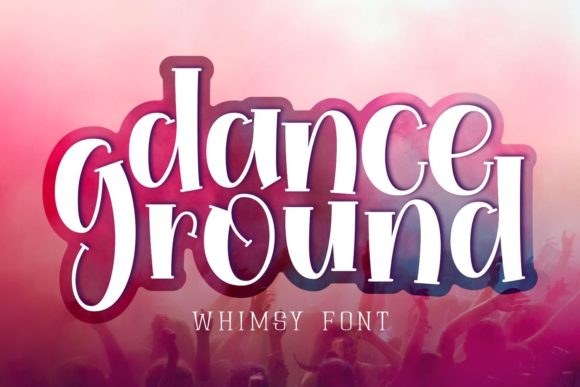
Dance Ground Font: Elevate Your Designs with a Unique and Stylish Display Font
In the world of design, fonts play a crucial role in conveying messages, expressing emotions, and creating visual identities. When it comes to making a statement, a stylish and unique display font can make all the difference. Introducing Dance Ground Font, an interesting and distinctive display font that can help you create gorgeous and timeless designs. In this article, we’ll explore the features, benefits, and uses of Dance Ground Font, and why it’s an excellent choice for designers, artists, and businesses looking to elevate their visual game.
The Story Behind Dance Ground Font
Dance Ground Font is a carefully crafted display font designed to capture the essence of movement, energy, and creativity. Its unique and stylish look is inspired by the world of dance, with fluid lines, dynamic curves, and a sense of rhythm that sets it apart from other fonts. Whether you’re a designer, artist, or business owner, Dance Ground Font is sure to captivate your audience and leave a lasting impression.
Key Features of Dance Ground Font
- Unique and Stylish Design: Dance Ground Font boasts a distinctive and stylish design that will set your designs apart from the rest.
- Display Font: Perfect for headlines, titles, logos, and quotes, Dance Ground Font is optimized for display use.
- Highly Versatile: Use Dance Ground Font for a wide range of design projects, from invitations and business cards to power point presentations and more.
- Easily Readable: Despite its stylized design, Dance Ground Font remains highly readable, even at smaller sizes.
Benefits of Using Dance Ground Font
So, why choose Dance Ground Font for your design projects? Here are just a few benefits of using this incredible display font:
- Stand Out from the Crowd: With Dance Ground Font, you can create designs that are truly unique and eye-catching.
- Elevate Your Brand: Use Dance Ground Font to create a strong visual identity for your business or brand.
- Timeless Designs: With Dance Ground Font, you can create designs that are timeless and won’t go out of style.
Use Cases for Dance Ground Font
Dance Ground Font is an incredibly versatile display font that can be used for a wide range of design projects, including:
- Logos and Branding: Create a unique and memorable logo for your business or brand.
- Quotes and Posters: Use Dance Ground Font to create inspiring and eye-catching quotes and posters.
- Invitations and Events: Design beautiful and stylish invitations for weddings, parties, and other events.
- Business Cards and Stationery: Elevate your business cards and stationery with Dance Ground Font.
- Power Point Presentations: Add a touch of style and sophistication to your power point presentations.
Tips for Using Dance Ground Font
Here are a few tips for getting the most out of Dance Ground Font:
- Experiment with Colors: Try pairing Dance Ground Font with different colors to create unique and eye-catching designs.
- Play with Sizes: Experiment with different font sizes to create visual interest and hierarchy.
- Mix and Match: Combine Dance Ground Font with other fonts to create a unique and stylish typography.